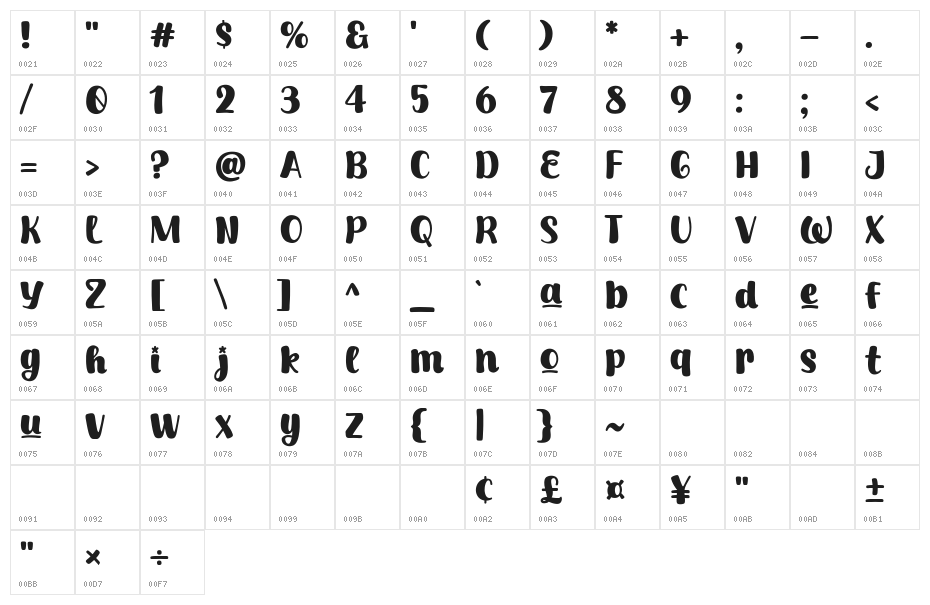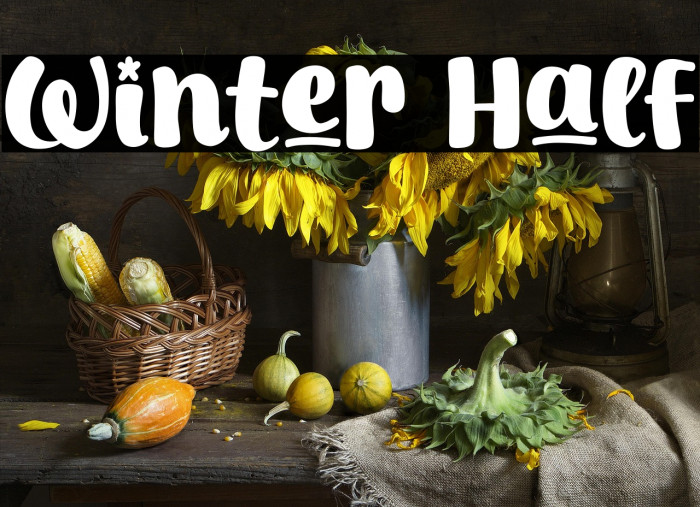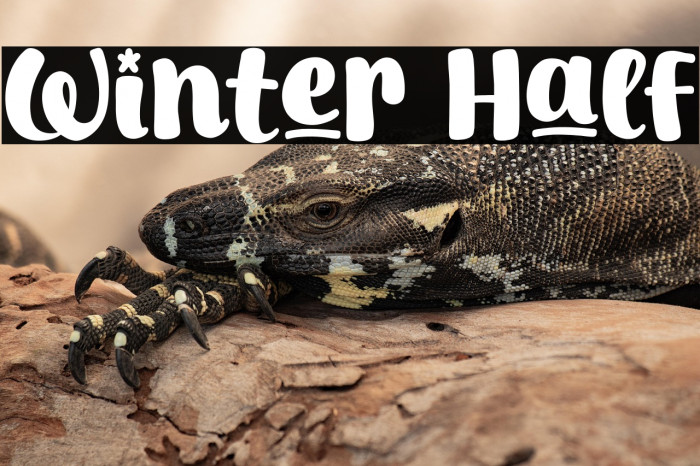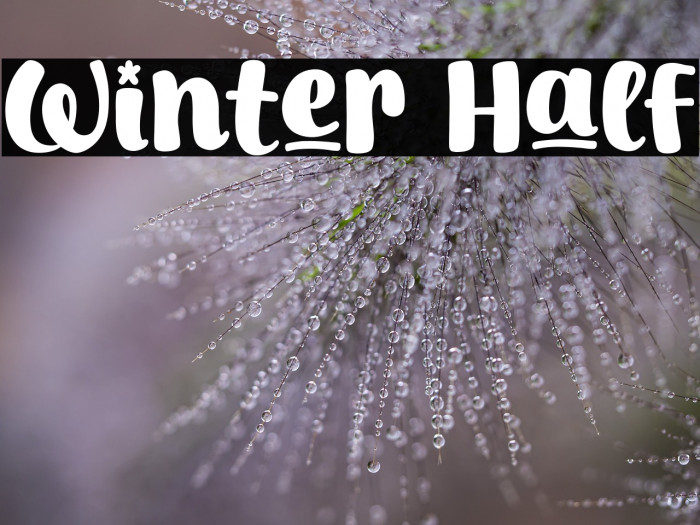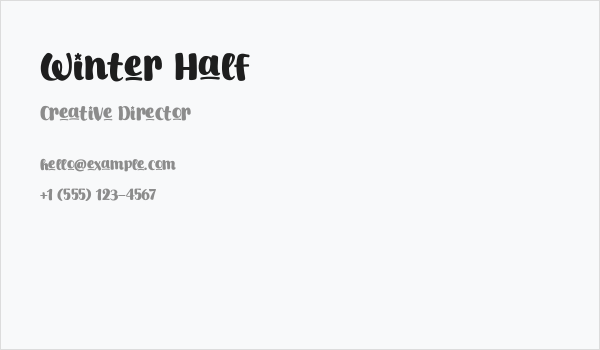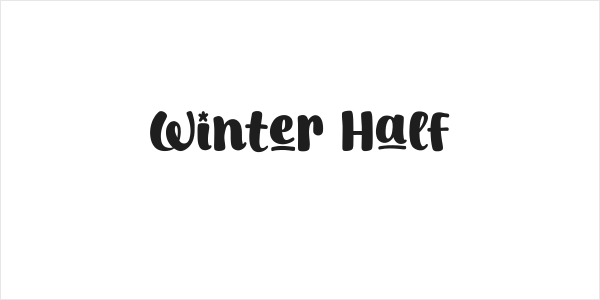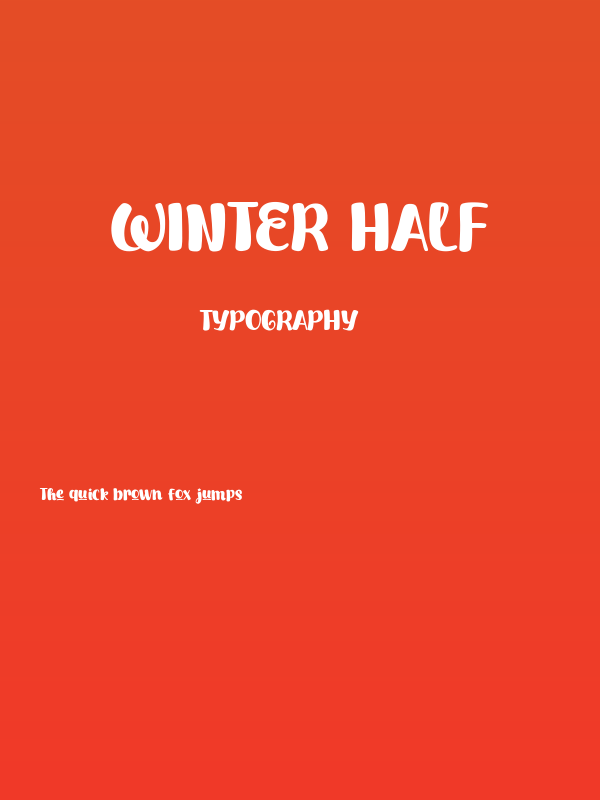
Winter Half Font
Winter Half Description
This font features a bold and playful style with a strong presence. The characters are rounded and have a whimsical flair, making them stand out with a unique personality. The uppercase letters are robust and slightly condensed, while the lowercase letters exhibit a charming, almost handwritten quality. The numbers are consistent with the overall style, maintaining the boldness and playful curves. Special characters are creatively designed, adding to the font's decorative appeal. The overall look is cohesive, with a sense of fun and creativity, making it suitable for eye-catching designs.
| Width | Condensed |
| Overall Style | Playful, Decorative |
| Proposed Projects | Ideal for children's books, playful branding, posters, and creative invitations. |